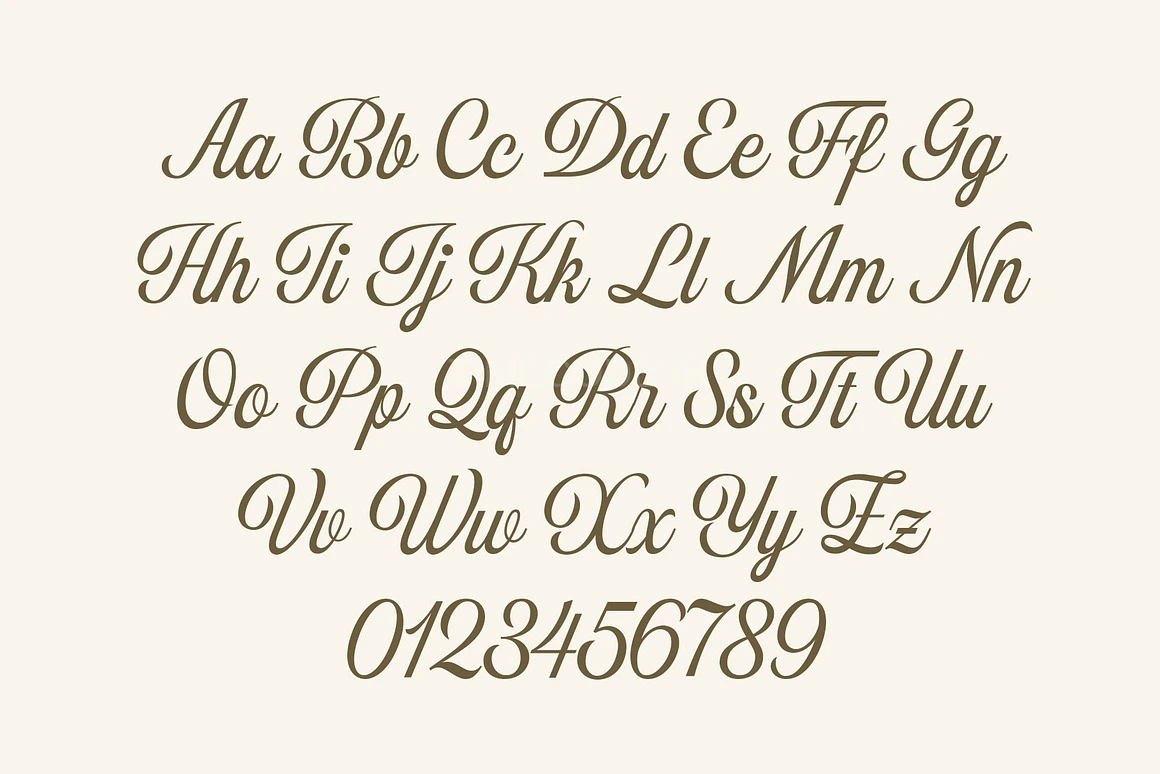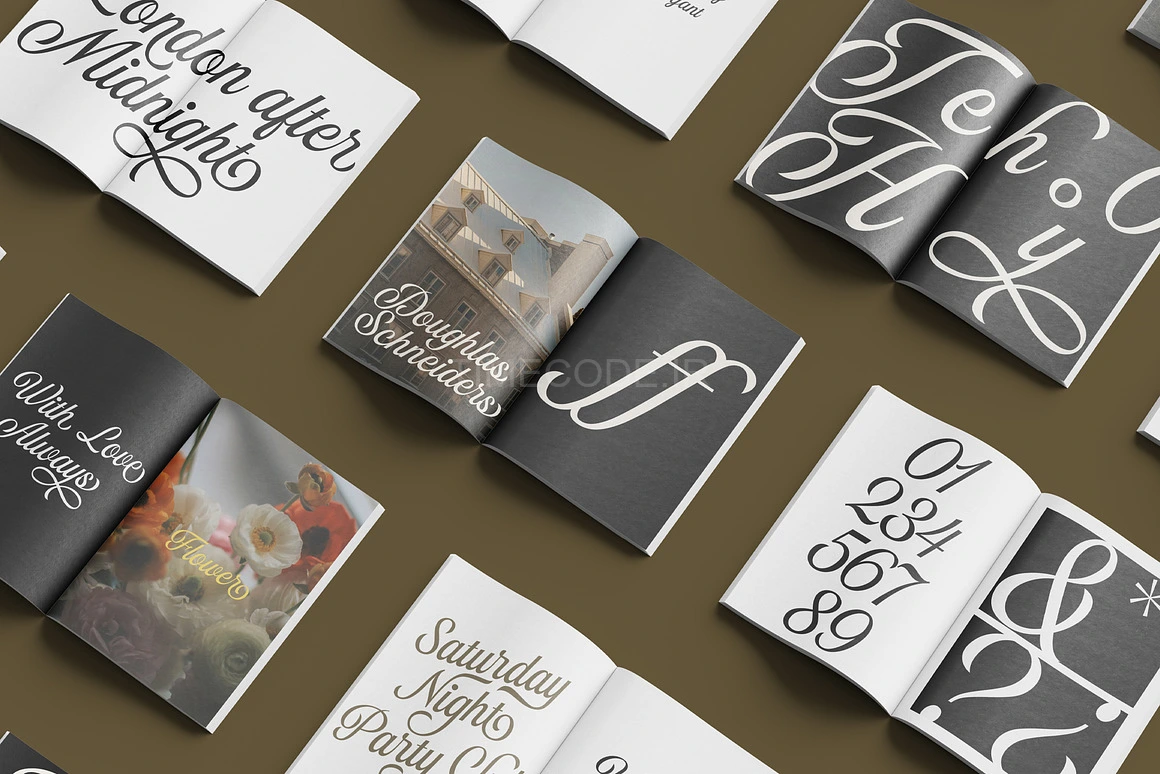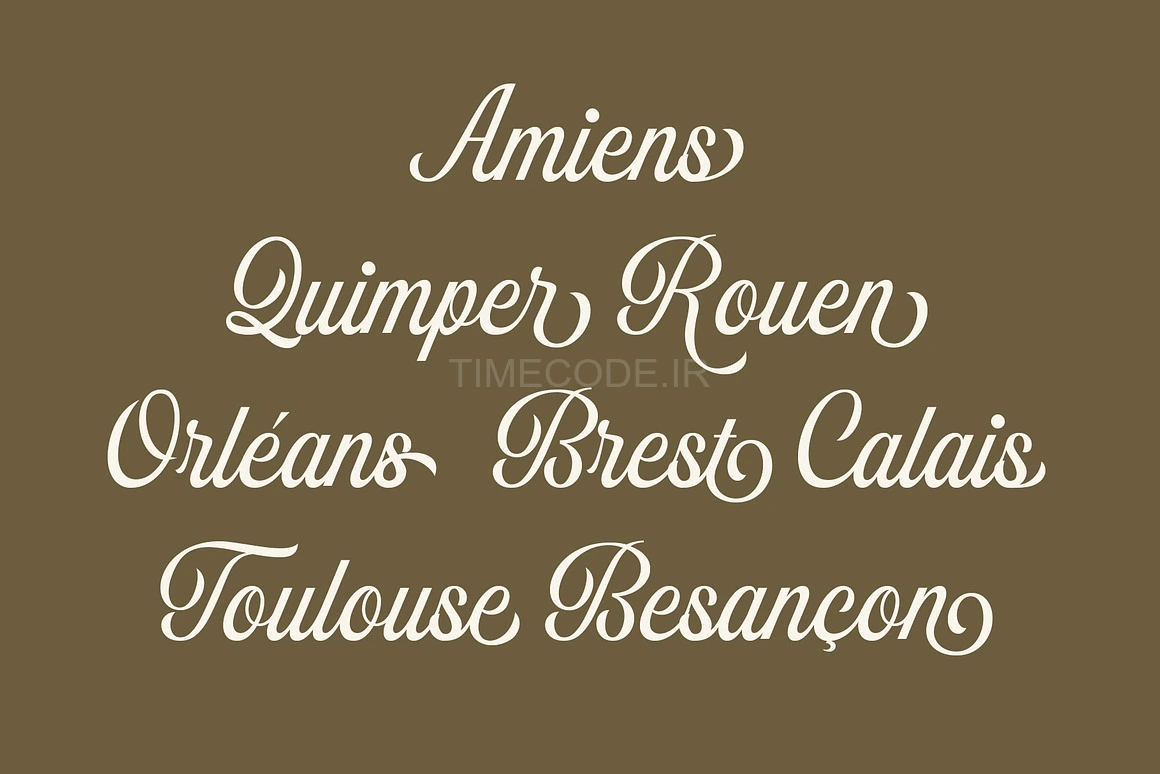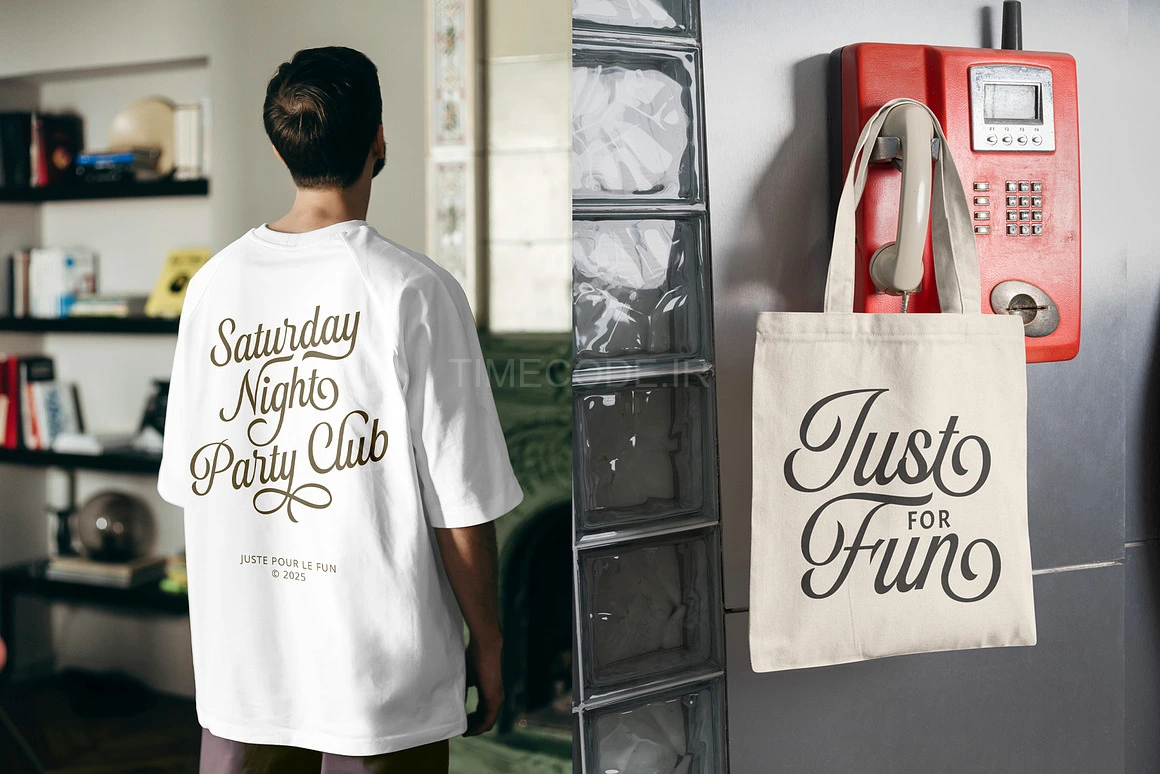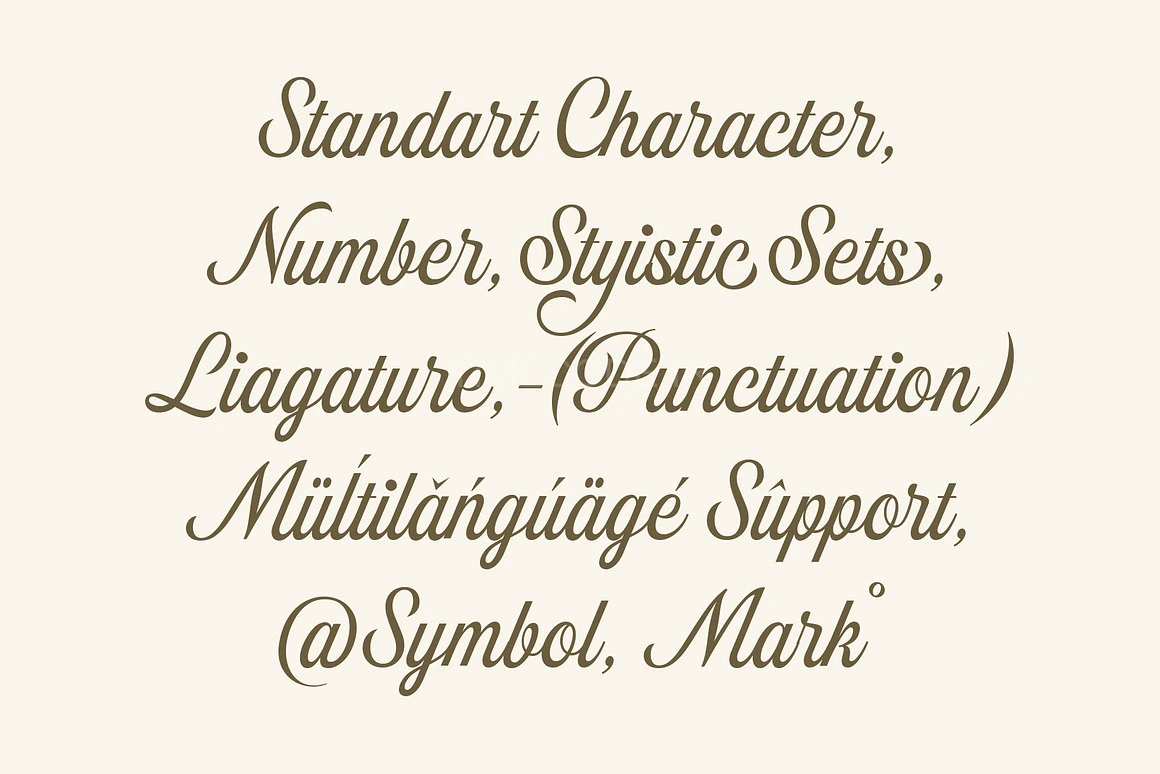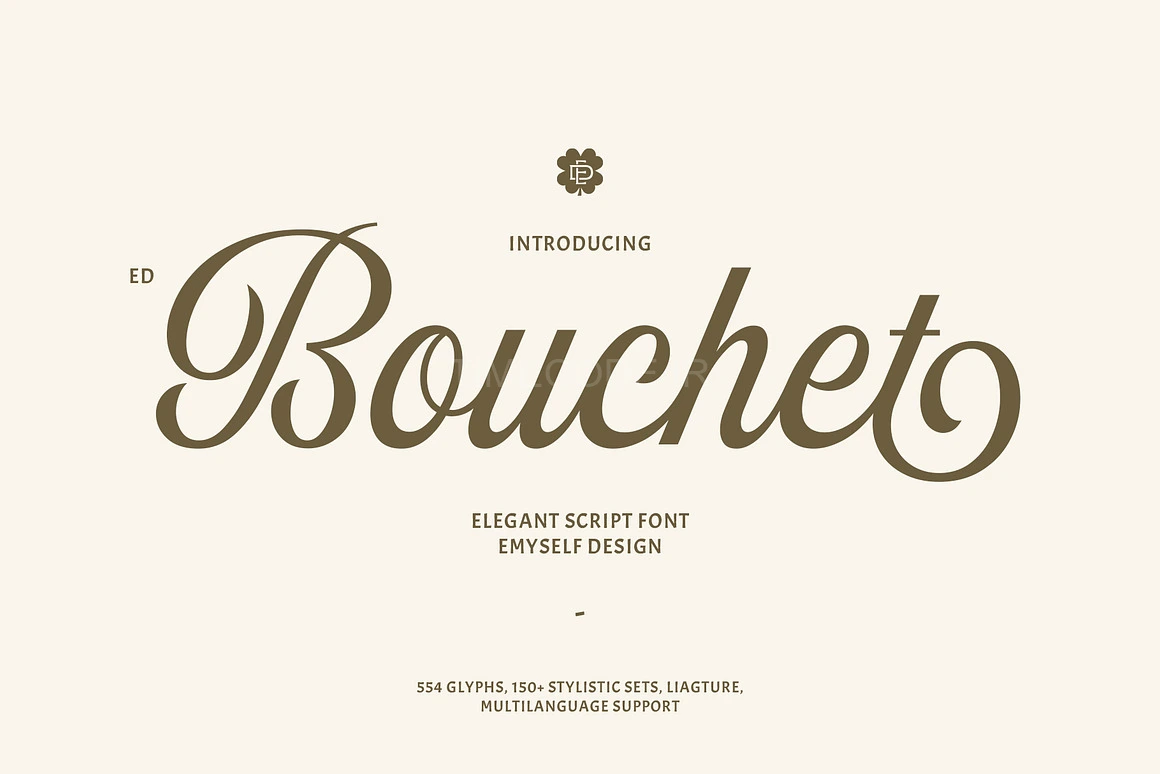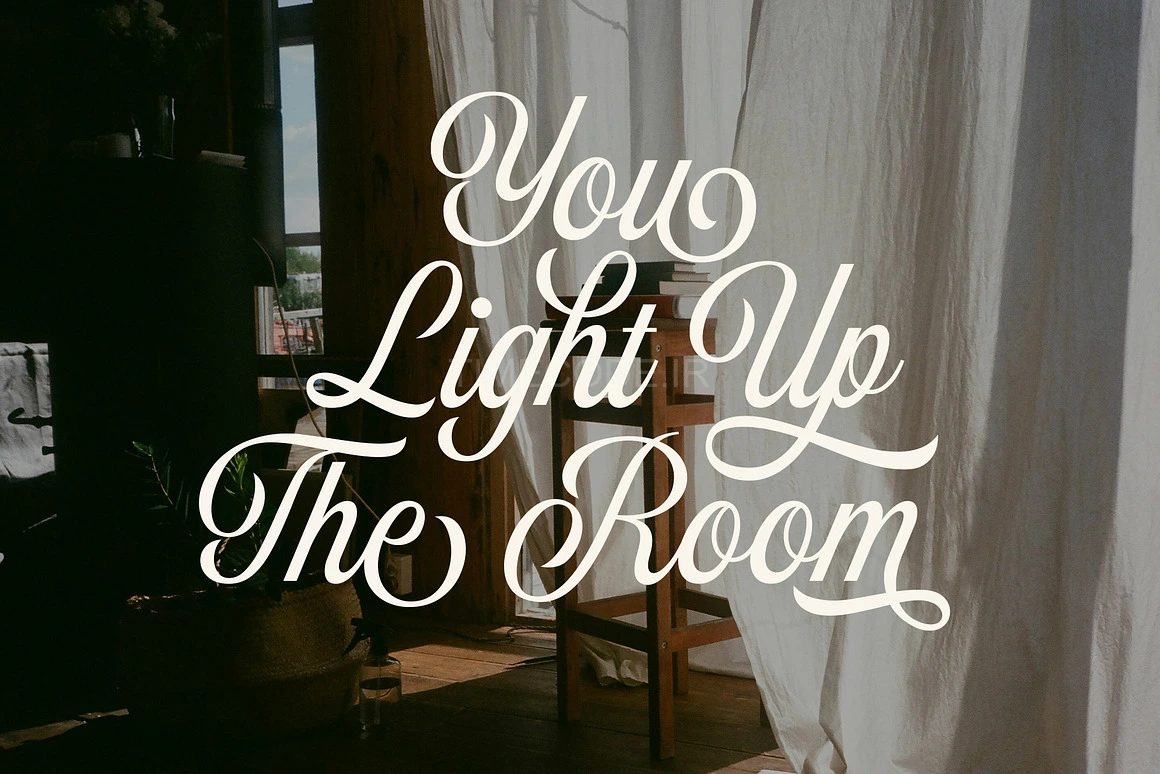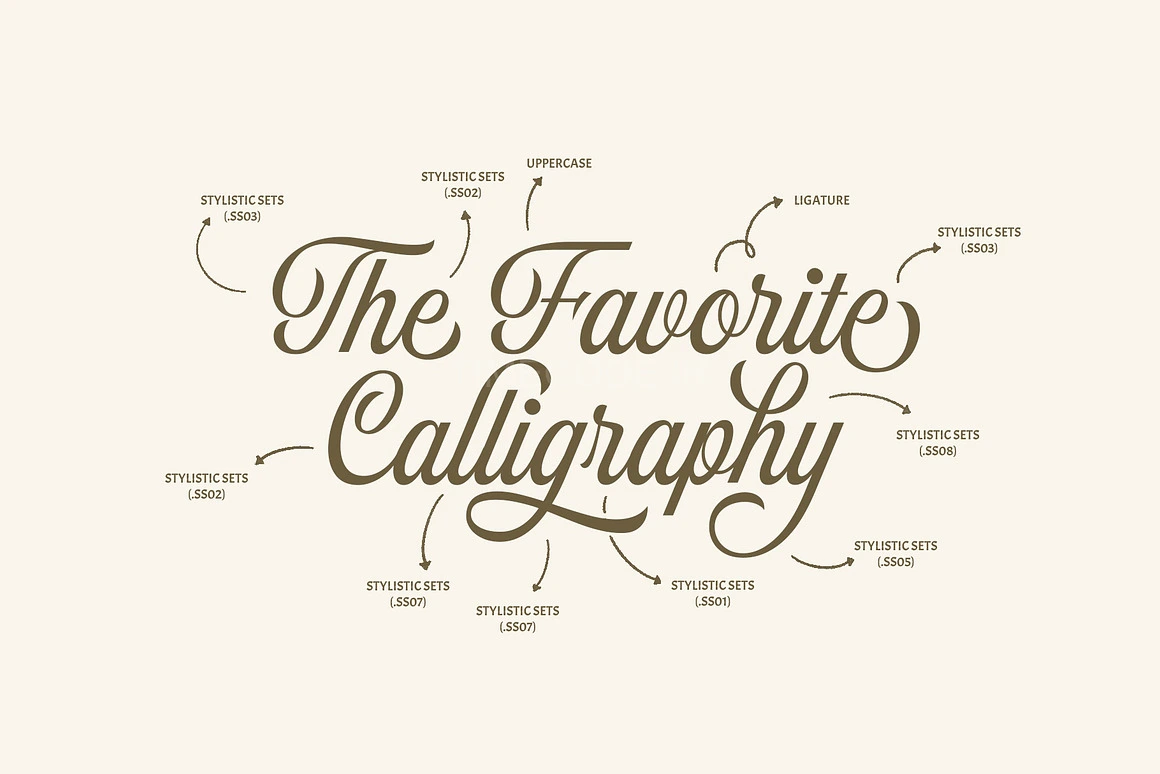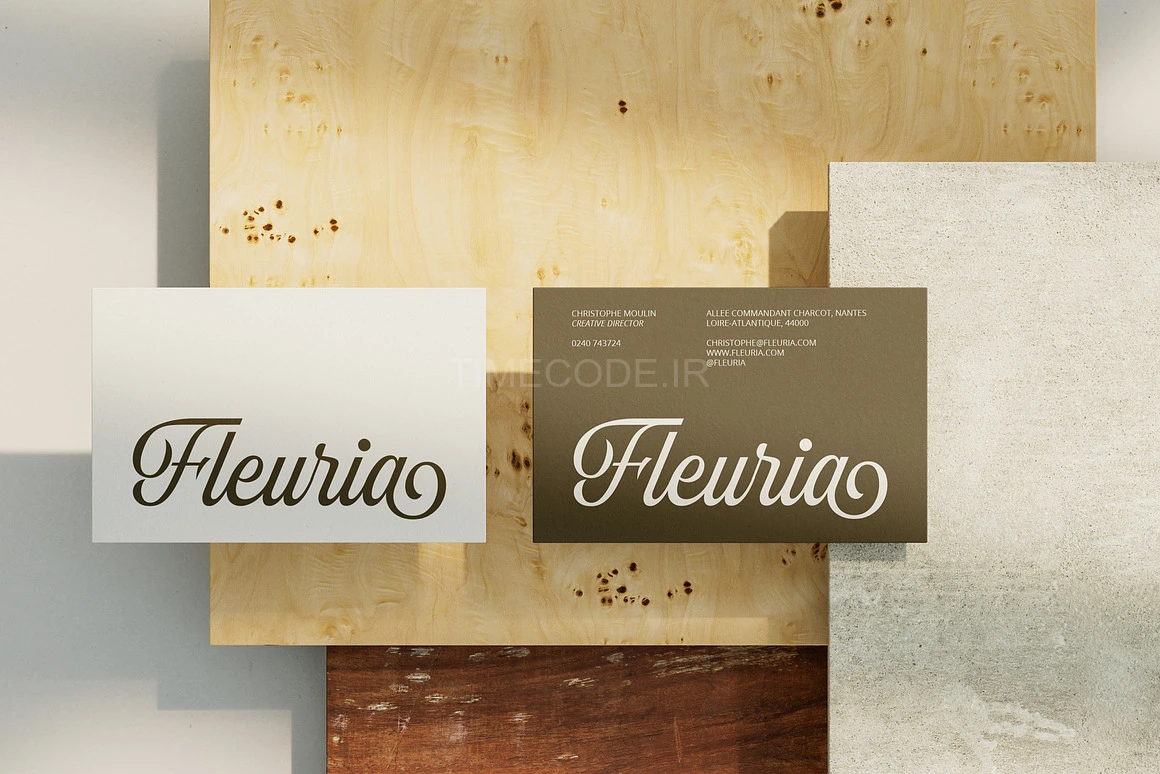
Inspired by the beauty of sign painting, Bouchet is a script font that offers a unique and stylish character. Each letter and number in this font has its own charm, creating a distinctive and captivating look.
In addition, this font is equipped with OpenType features such as a stylistic set of up to 150 which gives you a variety of letter variations, ligatures, and multi-language support. This font is perfect for logo designs, invitations, posters, and various other graphic design projects.
FEATURES:
- Total Glyphs: 554
- Uppercase
- Lowercase
- Punctuation and Marks
- Symbols
- 150+ stylistic set & Ligatures